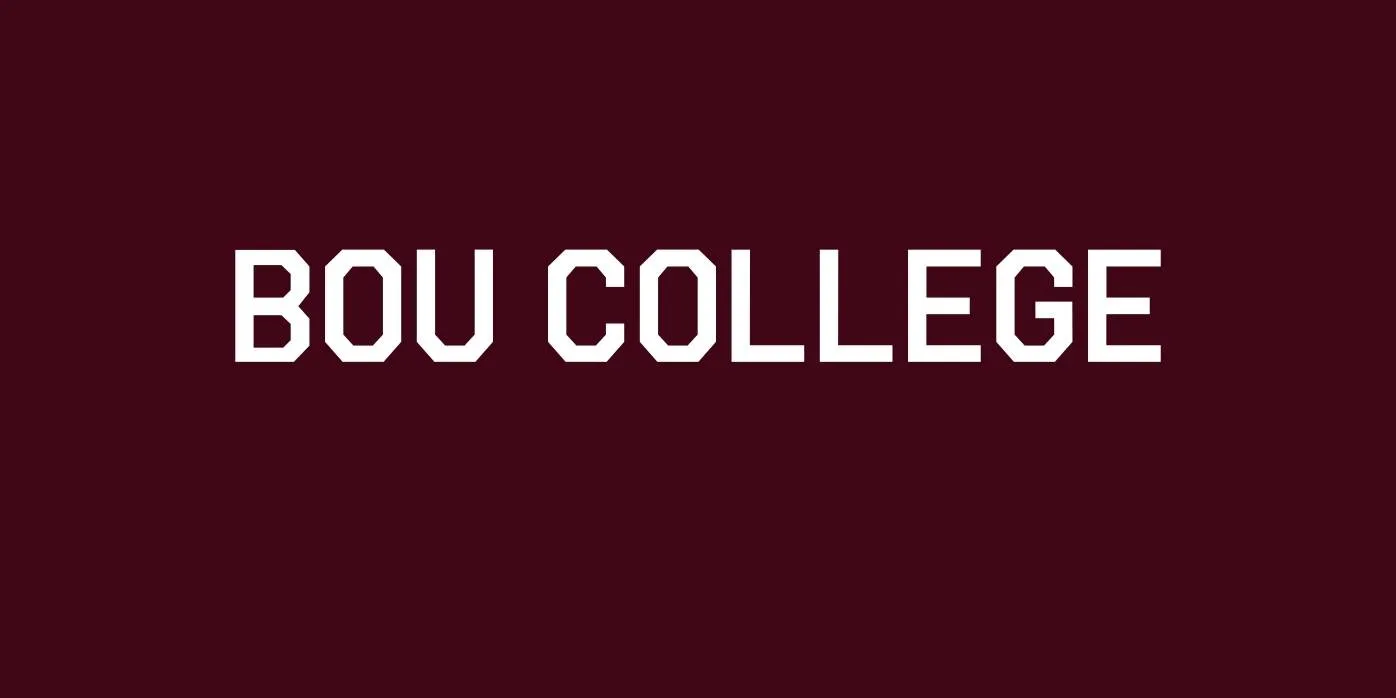
Bou College Font
Bou College Font is a fancy typeface. The family of this texture contains only one style. The characters of this font are classical stylish, bold, readable, attractive, and clear. This font character contains capital letters, lowercase letters, numbers, punctuation, and special letters.